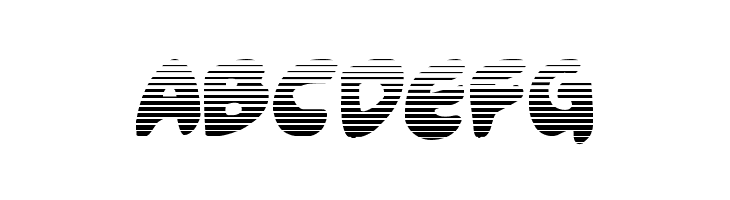
A bold, futuristic font with a gradient effect created by horizontal lines.
A bold, futuristic font with a halftone effect and dynamic horizontal lines.
A bold, futuristic font with horizontal stripes and geometric shapes.
A bold, three-dimensional font with horizontal stripes and a vintage-modern aesthetic.
A modern, halftone-style font with geometric structure and horizontal line patterns.
A bold, futuristic font with horizontal stripes and geometric shapes.
A bold, modern font with a linear gradient effect created by horizontal lines.
A bold, italicized font with a gradient effect created by horizontal lines, offering a modern and dynamic look.
A bold, oblique font with a vanishing effect created by horizontal lines.
A bold, dynamic font with horizontal strokes creating a sense of movement.
A decorative font with a futuristic design using horizontal lines and dots.
A bold, modern font with horizontal stripes and italicized, expanded characters.
A bold, futuristic font with horizontal stripes and geometric shapes.
A futuristic, geometric font with bold horizontal lines and a dynamic style.
A futuristic font with gradient-like horizontal lines and geometric structure.
A bold, geometric font with horizontal stripes for a modern, energetic look.
A bold, futuristic font with a unique horizontal scanline effect.
A modern, italic font with a gradient effect and dynamic horizontal lines.
A bold, italicized font with a gradient effect created by horizontal lines.
A bold, geometric font with a unique horizontal striped pattern.
A bold, futuristic font with horizontal gradient lines and a slanted, dynamic style.
A bold, dynamic font with a horizontal line pattern and a futuristic look.
A futuristic font with horizontal line patterns creating a digital, high-tech look.
A bold, futuristic font with horizontal striped patterns creating a dynamic look.
A bold, decorative font with a unique halftone effect and horizontal lines.
A bold, retro-inspired decorative font with horizontal stripes and an italic slant.
A bold, decorative font with horizontal stripes and a retro, geometric style.
A bold, italicized font with a gradient effect created by horizontal lines.
A bold, futuristic font with a unique horizontal line pattern.
A futuristic italic font with a gradient effect created by horizontal lines.
A modern, geometric font with a gradient effect created by horizontal lines.
A bold, italicized font with a gradient effect created by horizontal lines, offering a playful and dynamic style.
A bold, playful font with a unique horizontal stripe pattern.